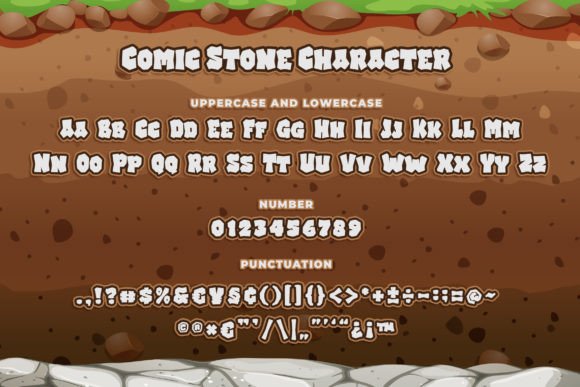
Comic Stone Font
Are you looking for a cartoon/playful font? Do you want to create something that stands out and inspires creativity, imagination, and endless fun? Wait no more, here is the best choice.
Comic Stone is a bouncy and playful display font inspired by playful stone-style typography. It is suitable for book covers, children’s books, comics, posters, packaging, merchandise, logotype, and much more.